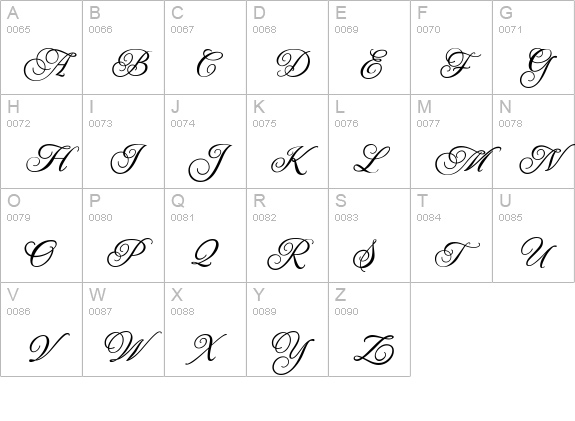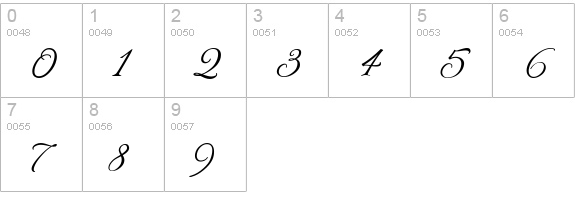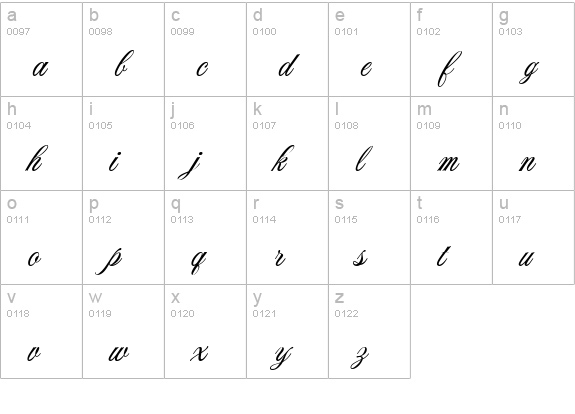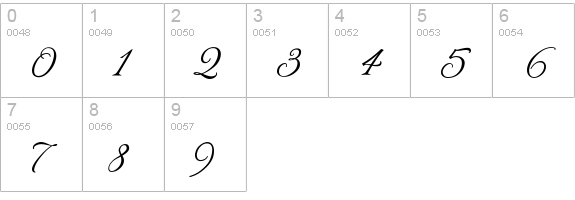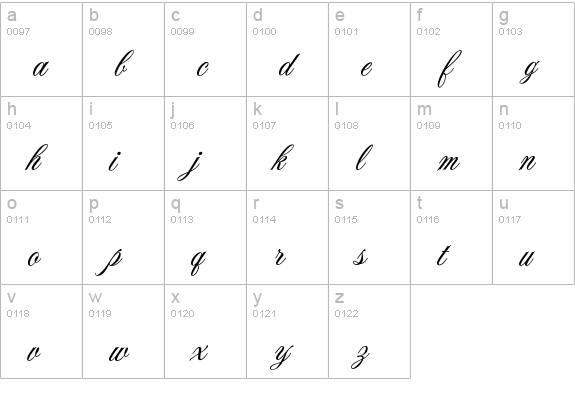
Introducing the exquisite beauty of JackieO font, a timeless and sophisticated typeface that exudes elegance and charm. This stunning font is the epitome of class, inspired by the iconic style of the one and only Jackie Kennedy Onassis. With its graceful curves and refined letterforms, JackieO font effortlessly captures the essence of a bygone era. Designed with meticulous attention to detail, every letter of JackieO font is crafted to perfection. From its delicate serifs to its graceful swashes, this font embodies a sense of grace and refinement that is sure to elevate any design project. Whether used for invitations, branding, or editorial layouts, JackieO font adds a touch of sophistication and allure that is simply unmatched. What sets JackieO font apart is not only its timeless beauty, but also its accessibility. This remarkable font is freely available to download at FontsMarket.com, ensuring that designers of all levels can enjoy its exquisite charm without any limitations. With just a few clicks, you can add this stunning font to your collection and infuse your designs with the elegance and allure of JackieO. Don't miss the opportunity to incorporate the effortless style of JackieO font into your projects. Its versatility and timeless appeal make it a perfect choice for a wide range of creative endeavors. Download JackieO font today from FontsMarket.com and let your designs radiate with the enchanting allure of this extraordinary typeface.